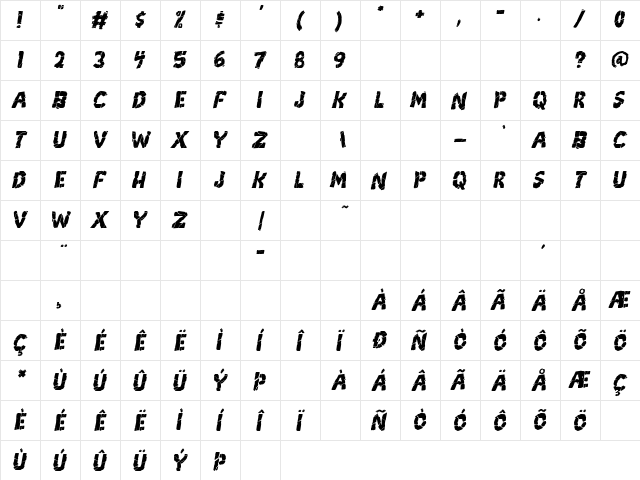
Complete Breakdown PG Italic glyph index. Displaying only characters natively supported by Breakdown PG Italic font.
Breakdown PG is a composed and adaptable typeface that performs quietly and consistently across a wide range of design contexts. The slanted form adds forward momentum and visual energy.